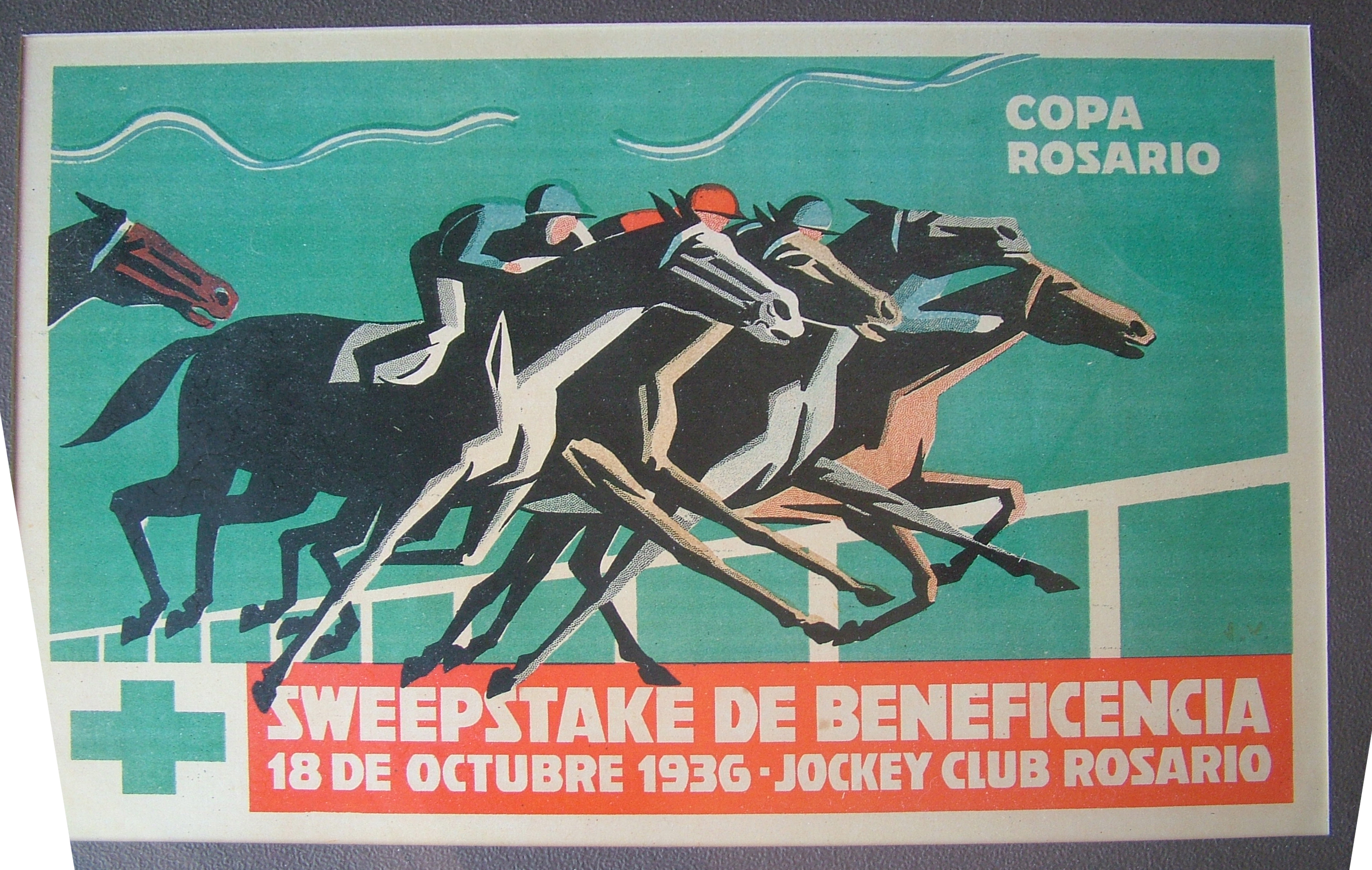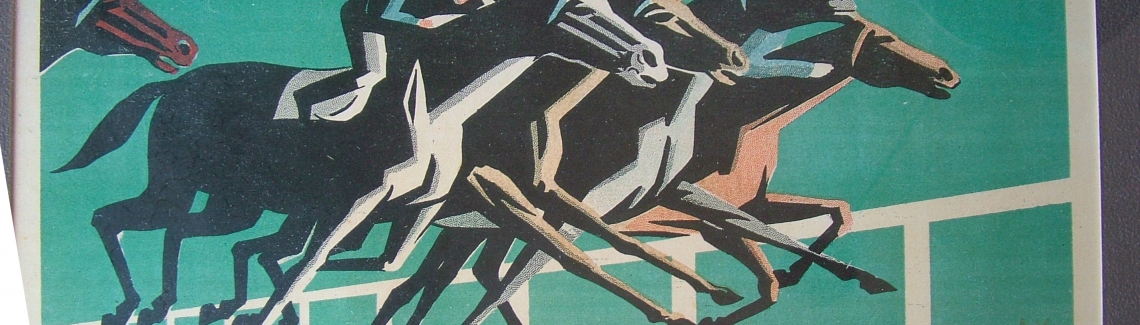
Jockey is available for free, inspired by old Argentine lettering.
Google commissioned the design of a new type family for it’s webfonts project. Jockey is based on the lettering by an unknown Argentine artist who designed posters for horse race tracks in the 1930’s. Out of a few upper case letterforms the TypeTogether team developed a full typeface in Regular and Bold that is available for free with a commercial license. Simply add to your cart, log-in and then download.